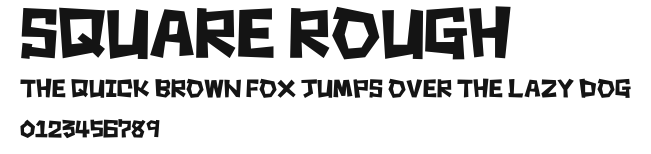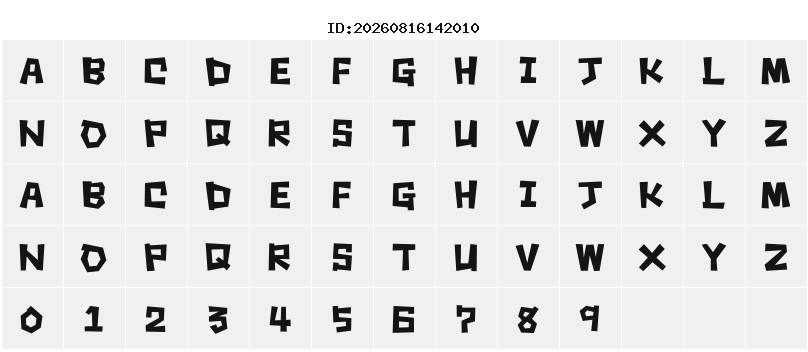
• Font Name: Square rough
• Font ID: Square rough
• Full Font Name: Square rough
• Version: Version 2.00
• PostScript Name: Square-rough
• Designer: Futaba
• Manufacturer: COLORFUL TYPHOON
• Description: Square rough Version2.00(Aug/2003)
About Square rough.ttf
Square rough.ttf is a modern, elegant sans-serif font designed for ultimate readability and visual harmony. Perfect for branding, headlines, web design, and print materials.